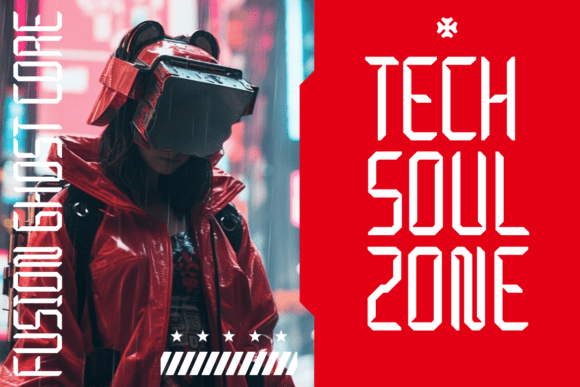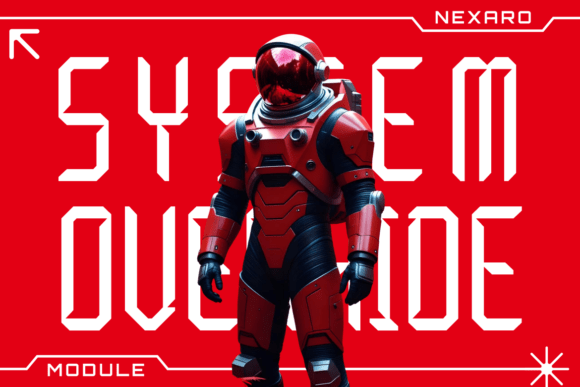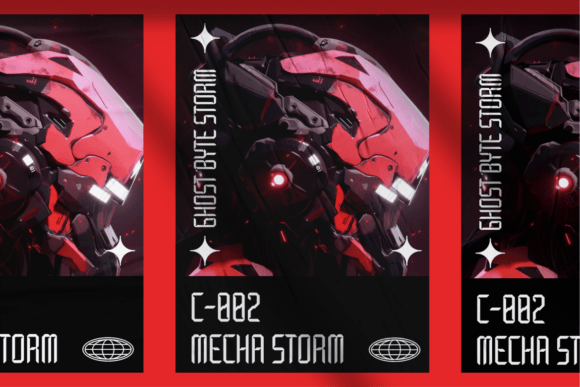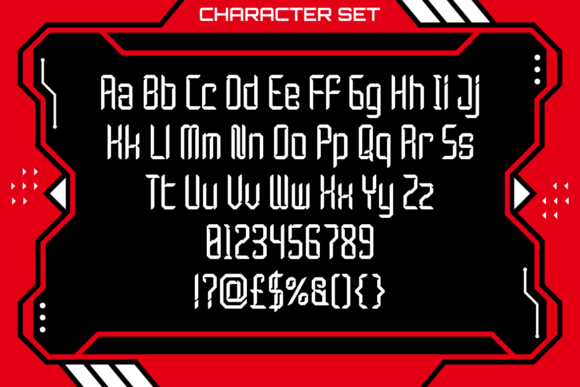
Introduction to Nexaro Module Font
Nexaro Module is a bold futuristic sci-fi typeface engineered for forward-facing designs.
It blends sleek angles, mechanical symmetry, and modular linework into a visually electrifying display font Each character evokes circuitry and spacecraft detailing, built with elongated vertical forms and sharp-edged terminals to emphasize a high-tech, engineered appearance.